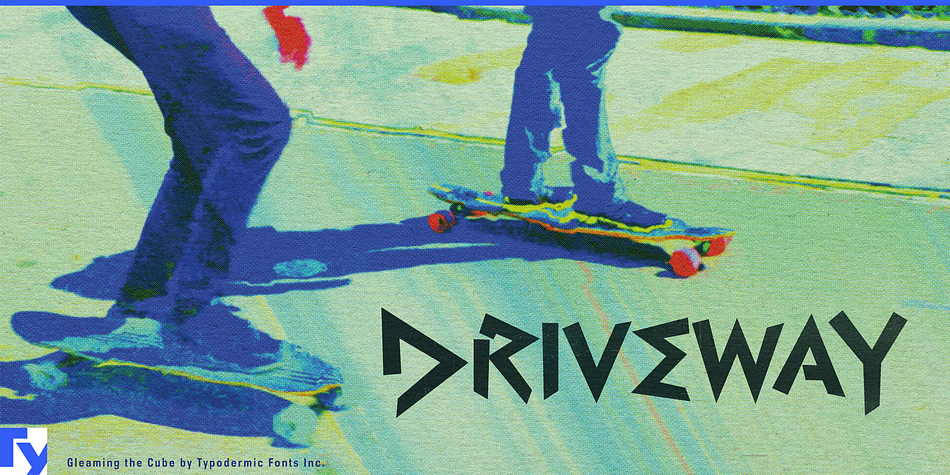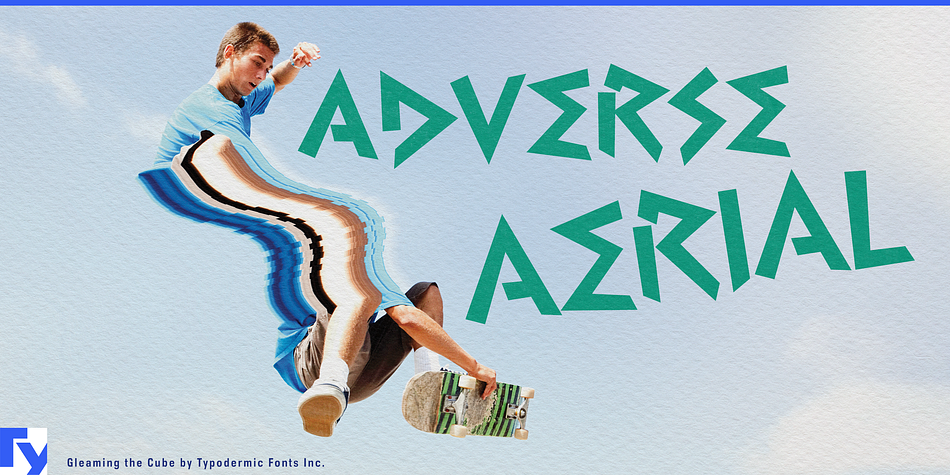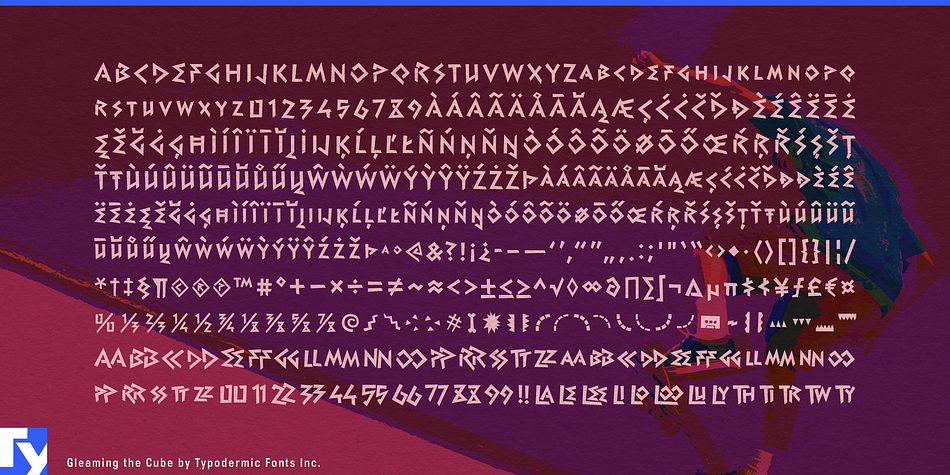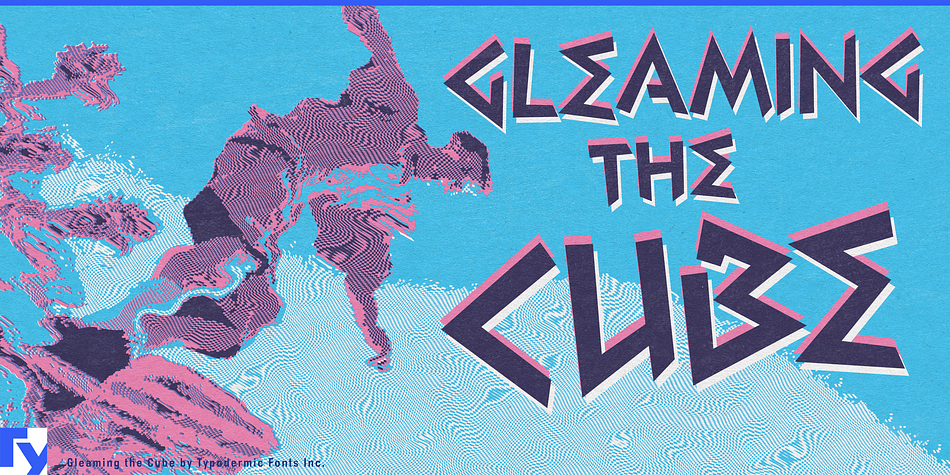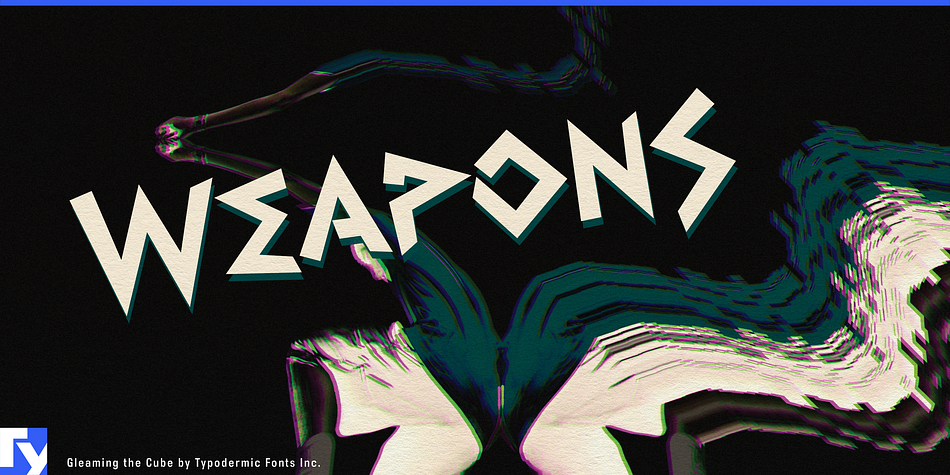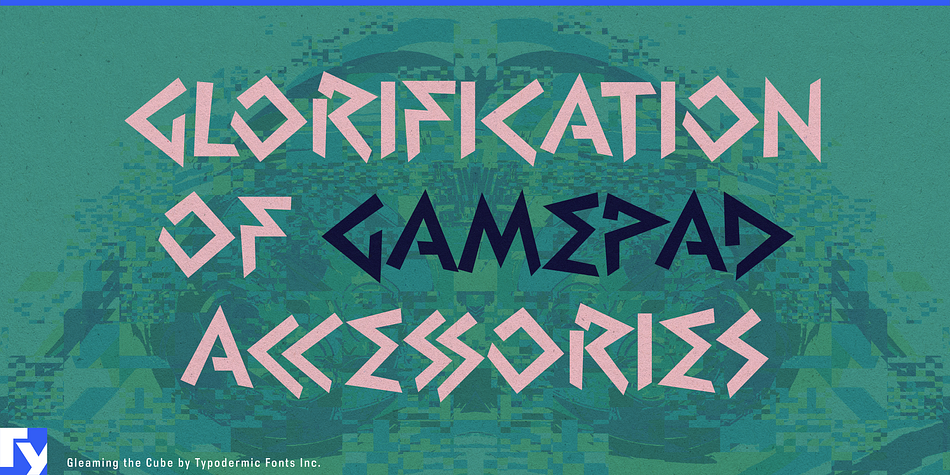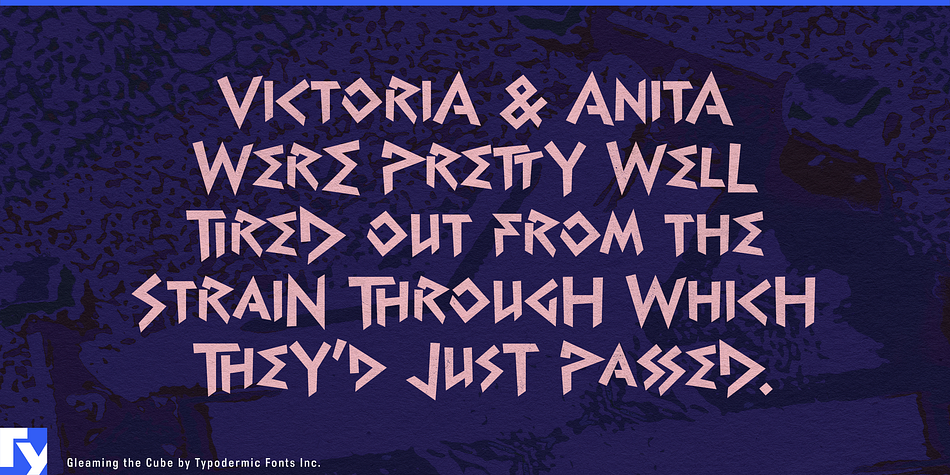
Gleaming the Cube is a novelty and foreign font published by Typodermic Fonts Inc.
Gleaming the Cube is a late 1980’s/early 1990’s style display typeface. Special combo ligatures and radically awesome symbols are included.